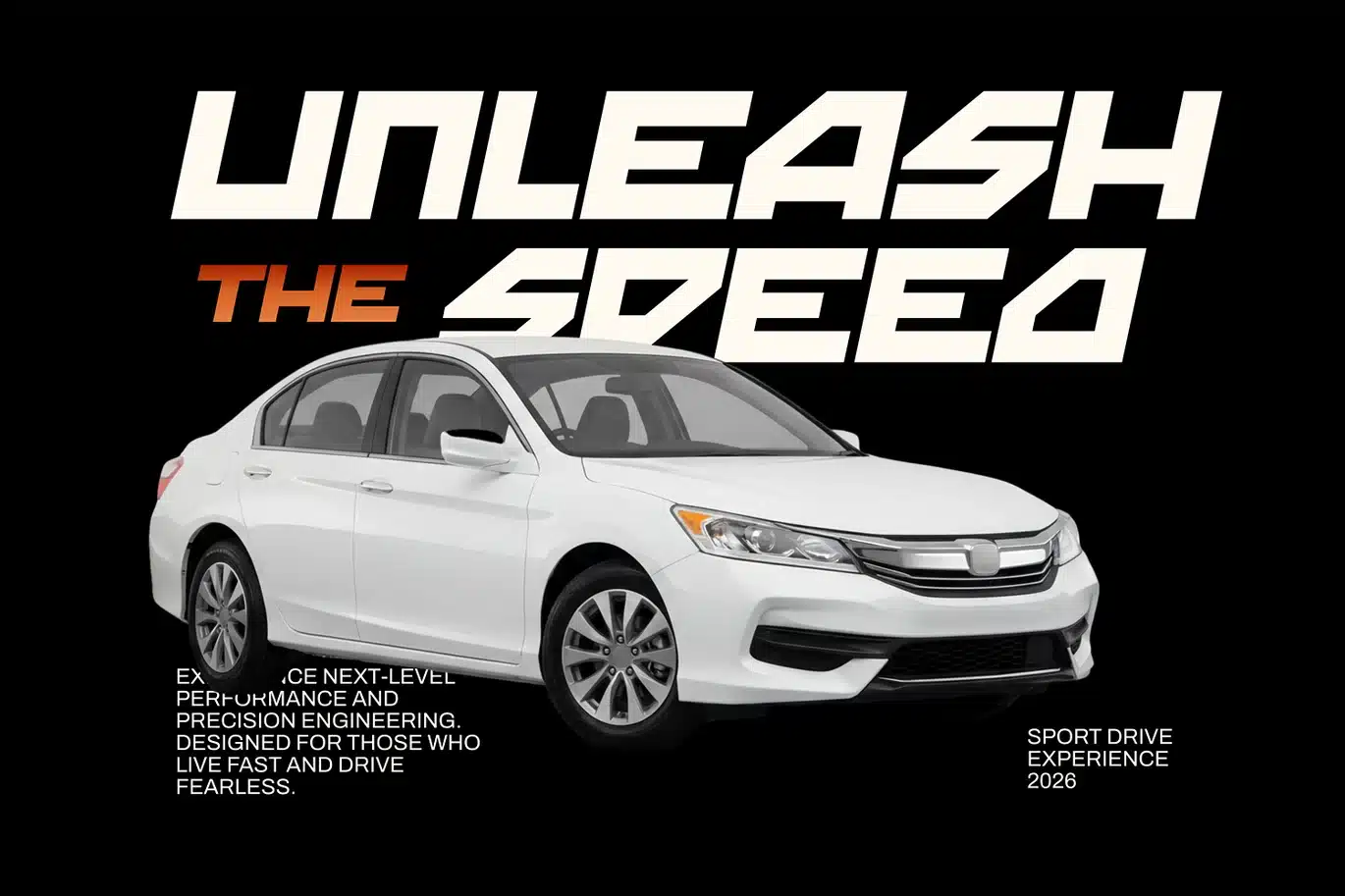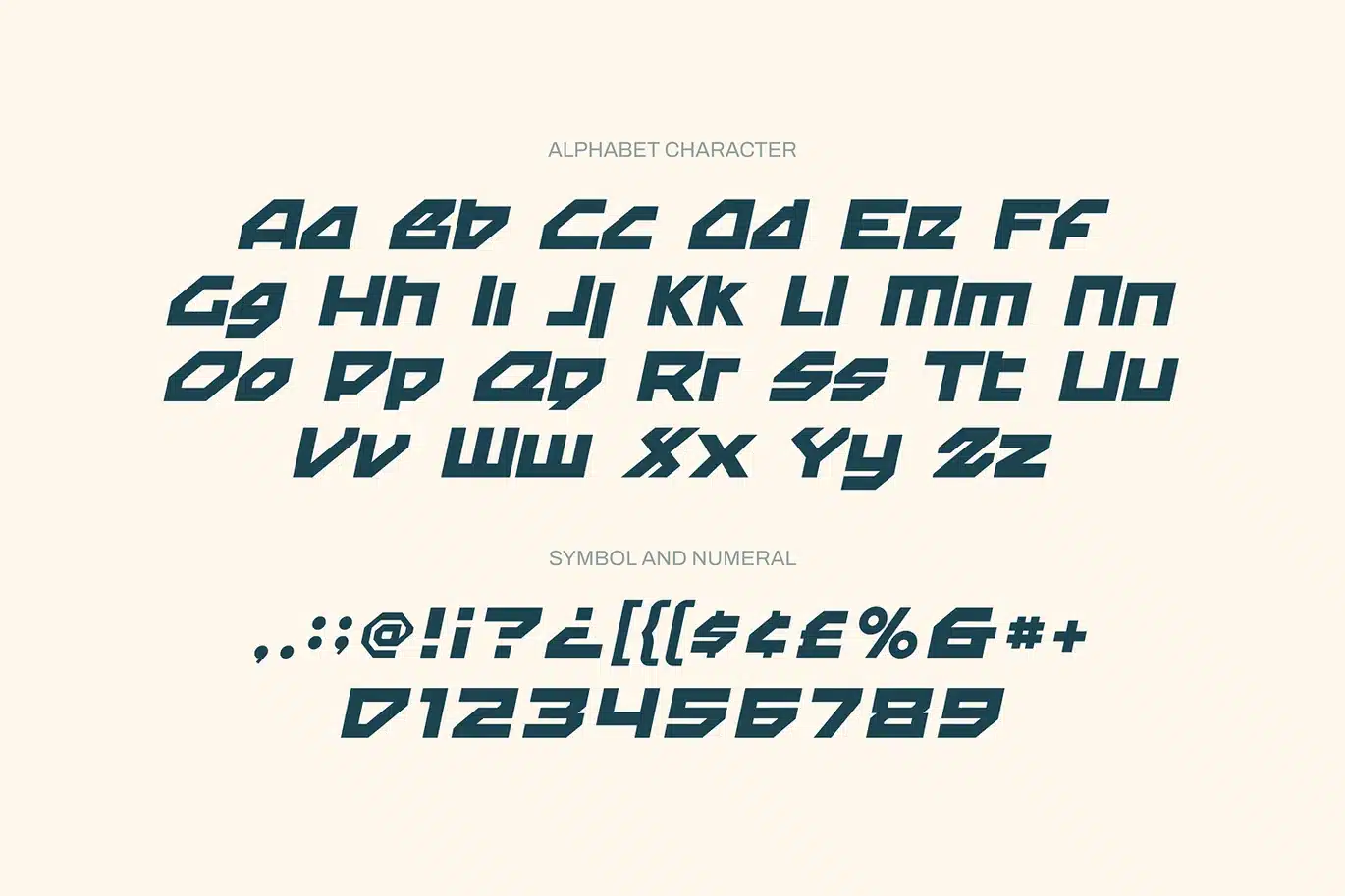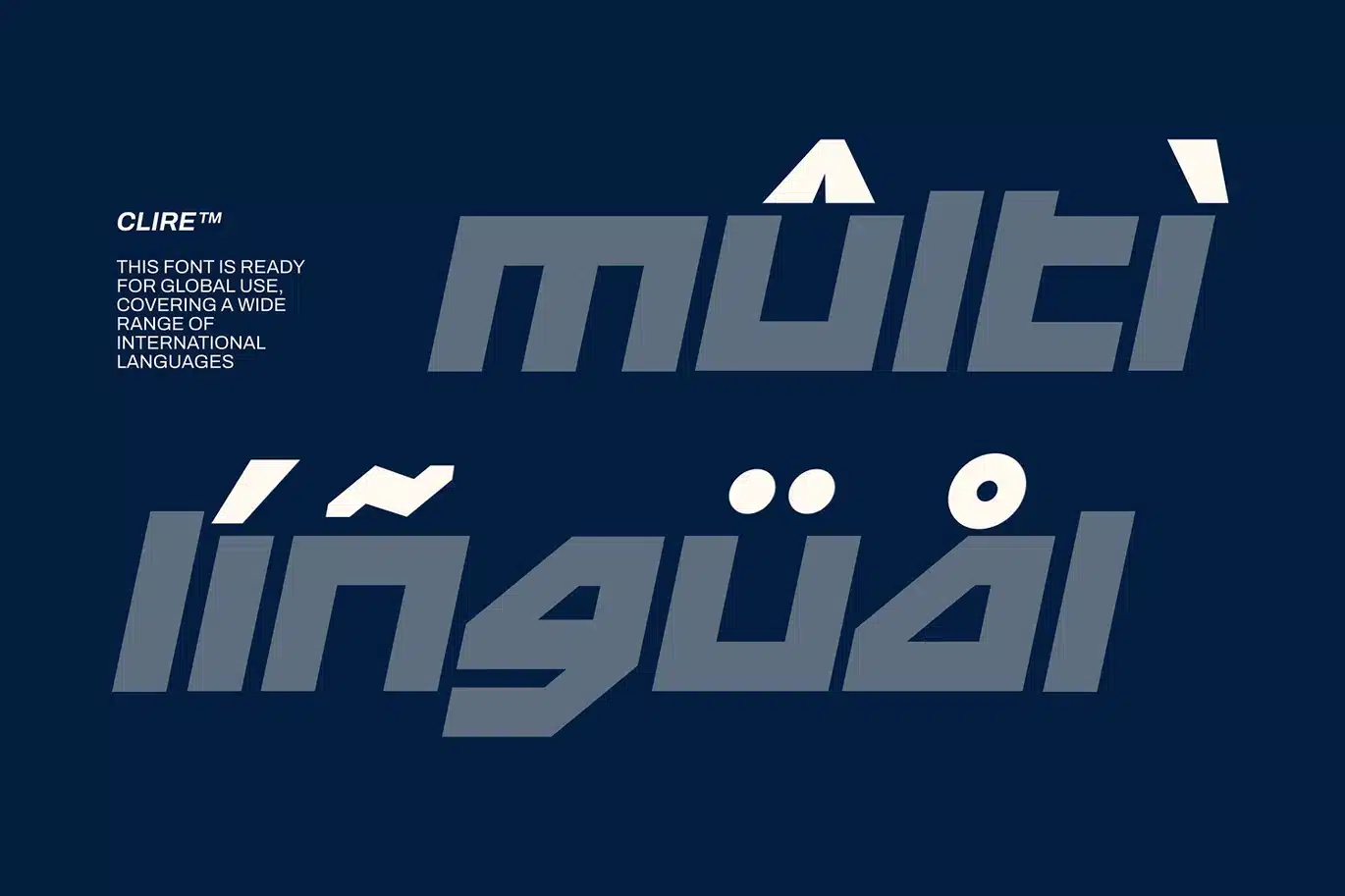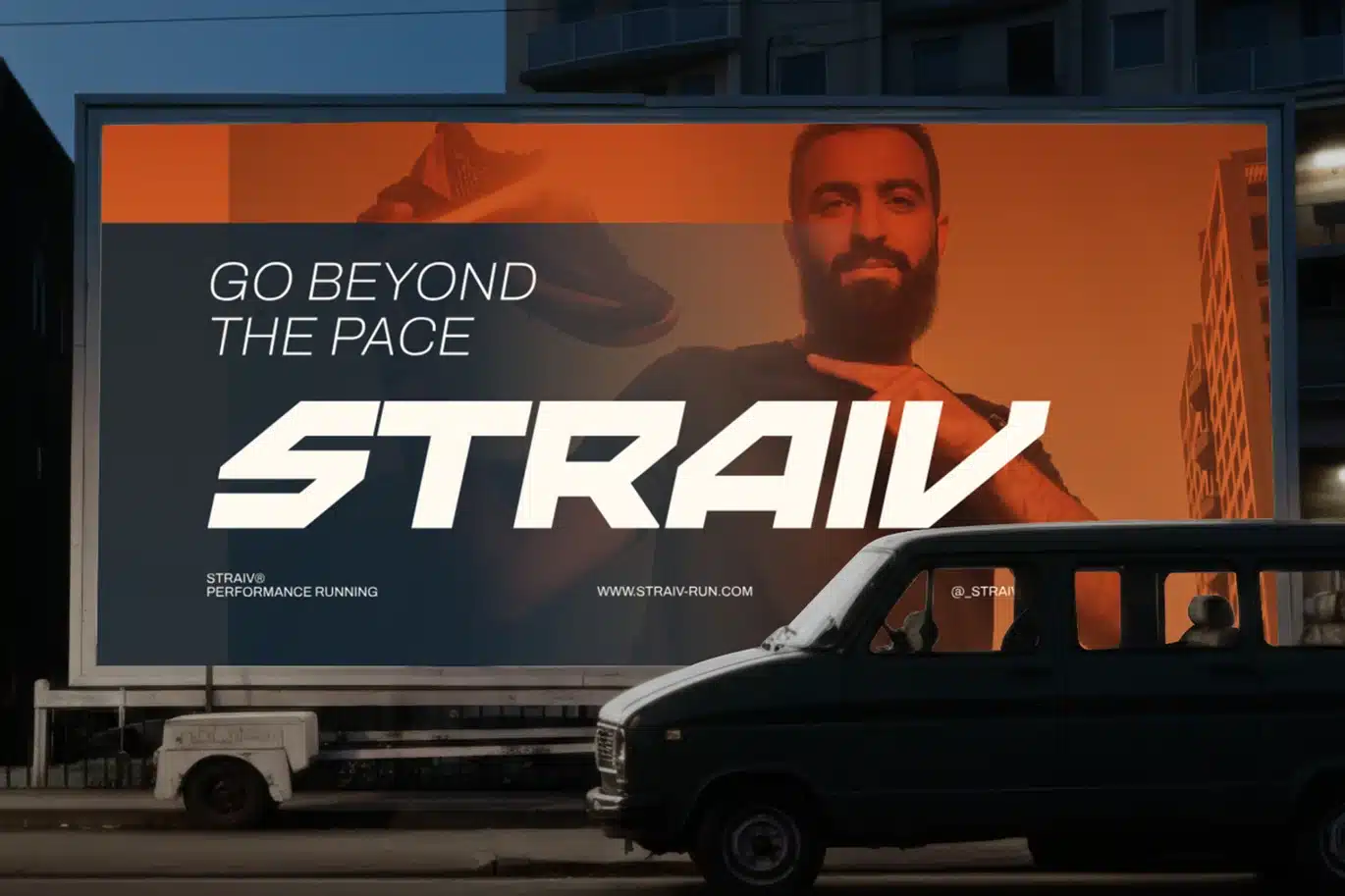
Clire – Sports Font
CLIRE is a sport-bold display font built with sharp aerodynamic angles and a strong forward-thrusting motion that captures pure speed and intensity. Its sleek, compressed structure is ideal for high-impact sports visuals such as racing posters, football graphics, basketball highlights, baseball promotions, and soccer branding that demand fast, aggressive typography. Designed to deliver modern athletic energy, CLIRE strengthens fitness campaigns, gym promotions, golf events, and multi-sport marketing with a bold, high-performance visual presence.
Engineered for competitive environments where acceleration and power matter, CLIRE performs strongly across race identities, biker event branding, hockey tournament visuals, and fight-event promotional materials. The angled cuts and motion-driven rhythm create a dynamic sense of velocity, making it a powerful choice for athletic campaigns, performance-focused visuals, and fast-paced editorial layouts. CLIRE pushes every message forward with precision, strength, and unstoppable sporting momentum.
Bold Moves, Strong Letters — where dynamic sport energy meets modern precision to create a fearless competitive identity.